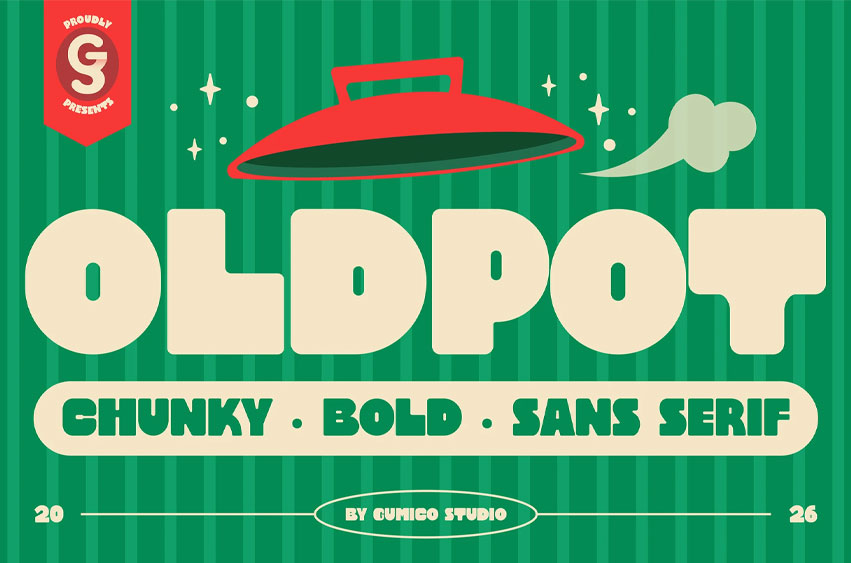
Oldpot Font Typeface – Display Font” was crafted carefully for your playful digital or print project. The chunkiness bring playfulness and friendly vibes to your work, good for branding as it gives distinctive bold style.
OLDPOT Features:
• Numeral Punctuations